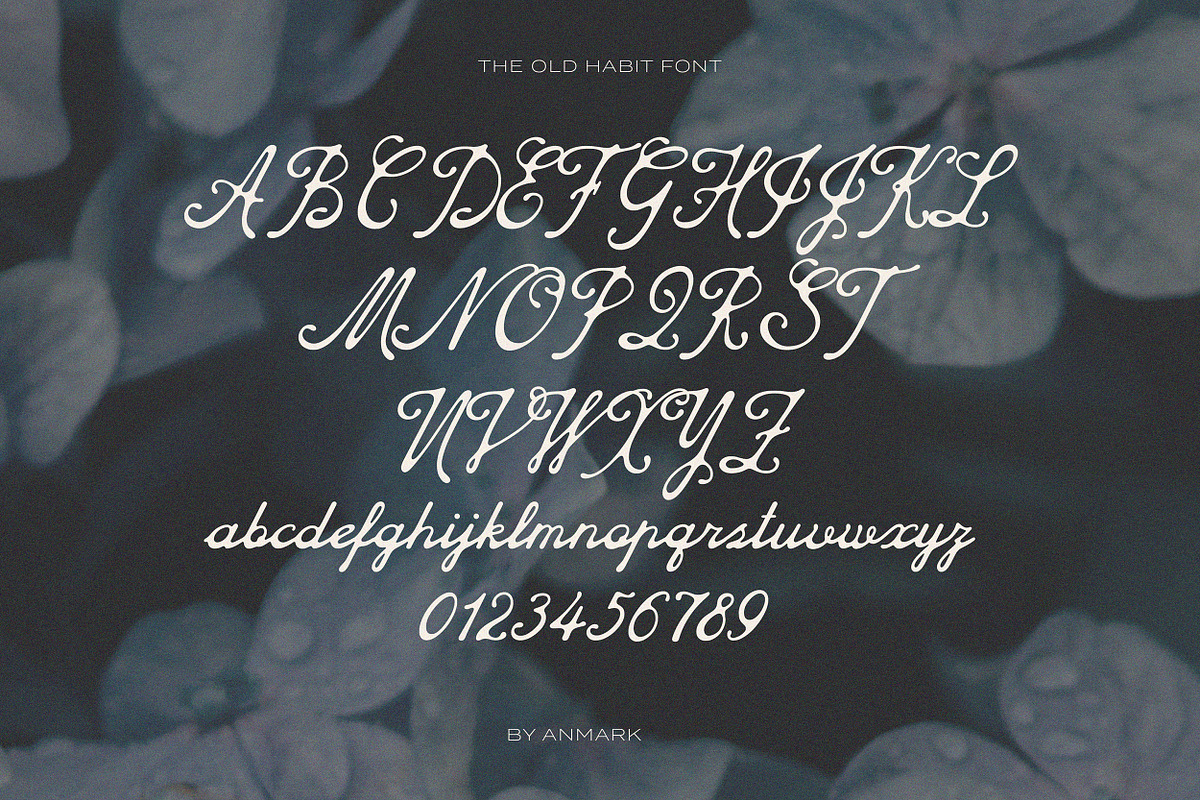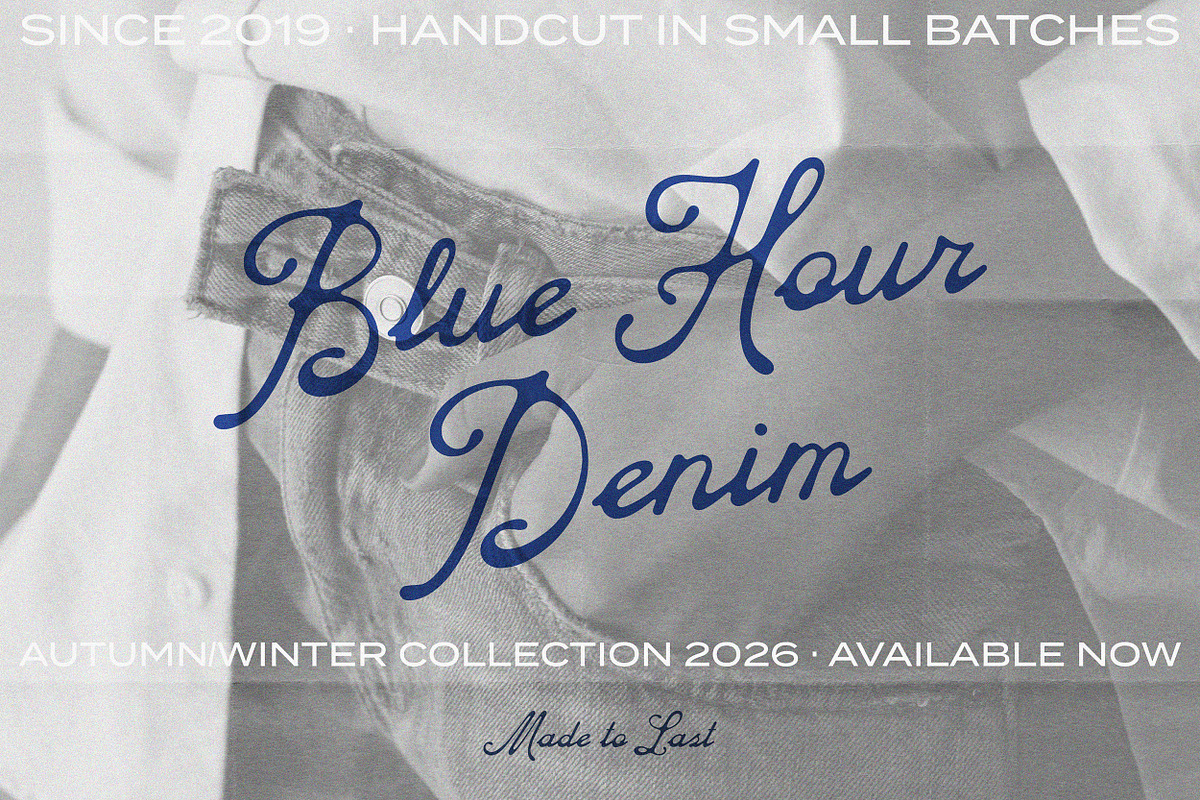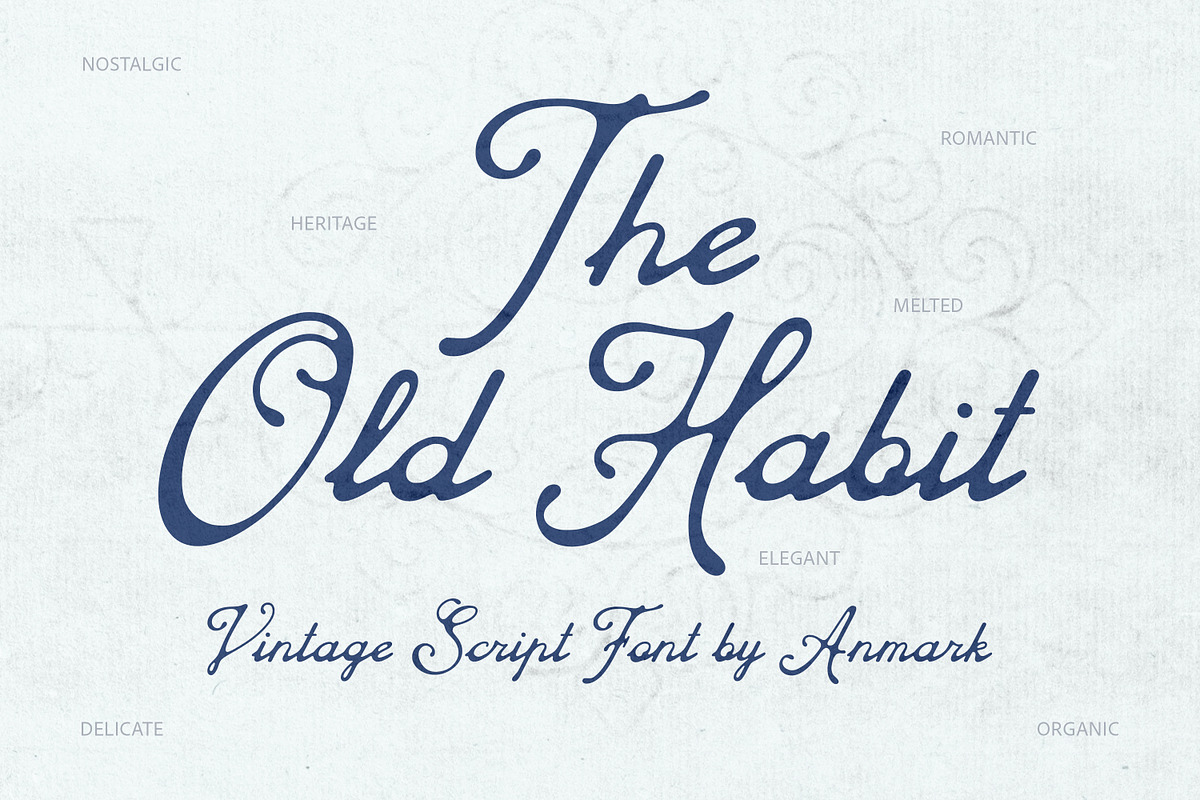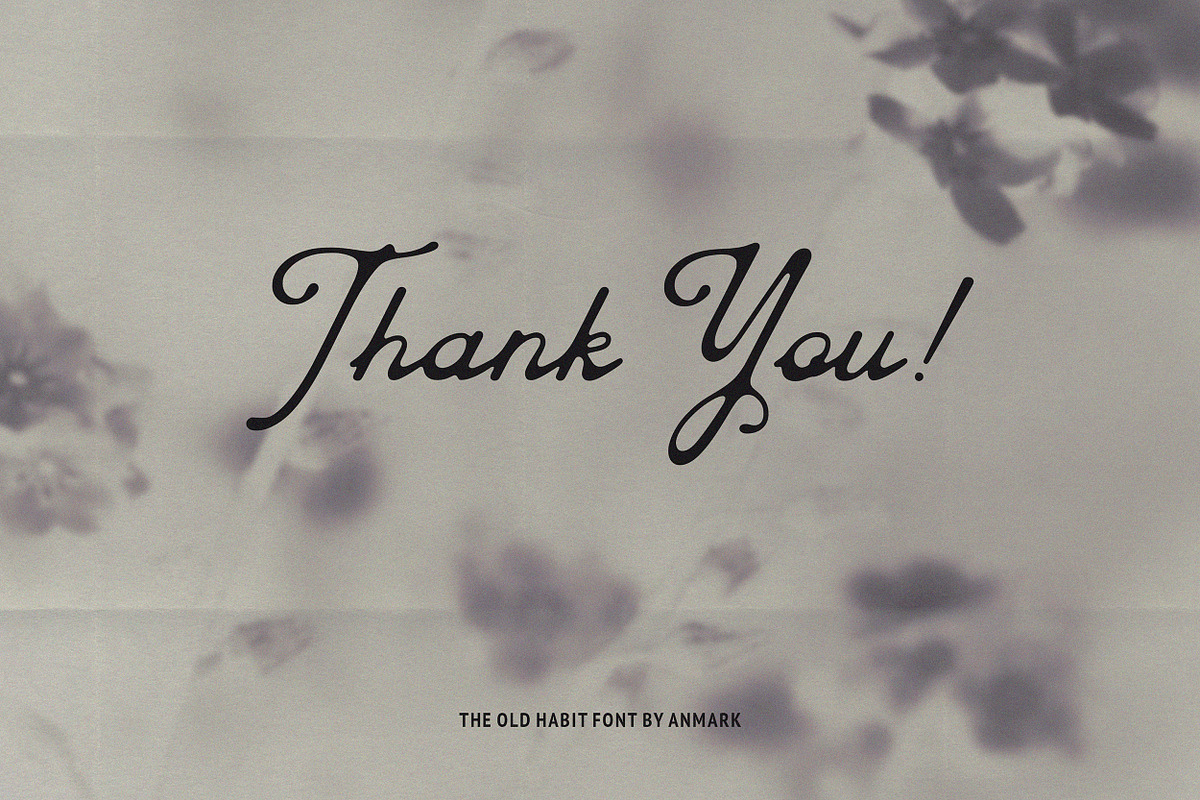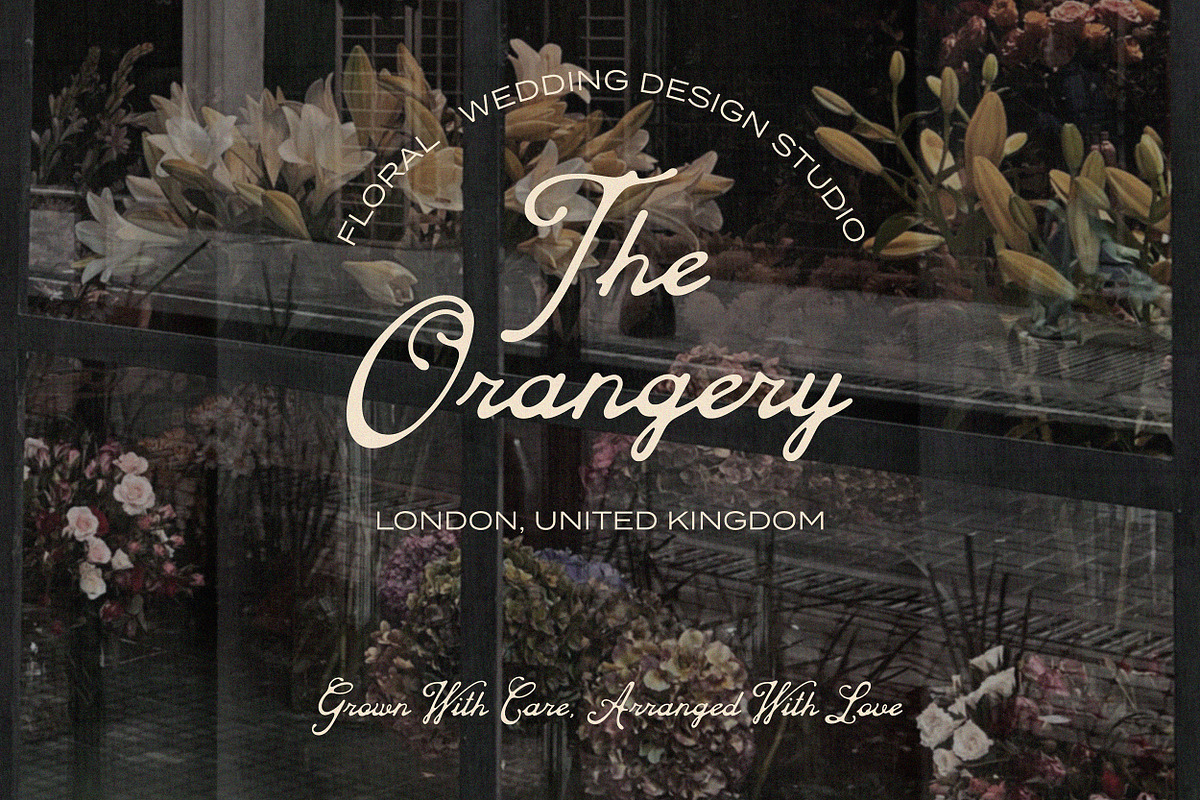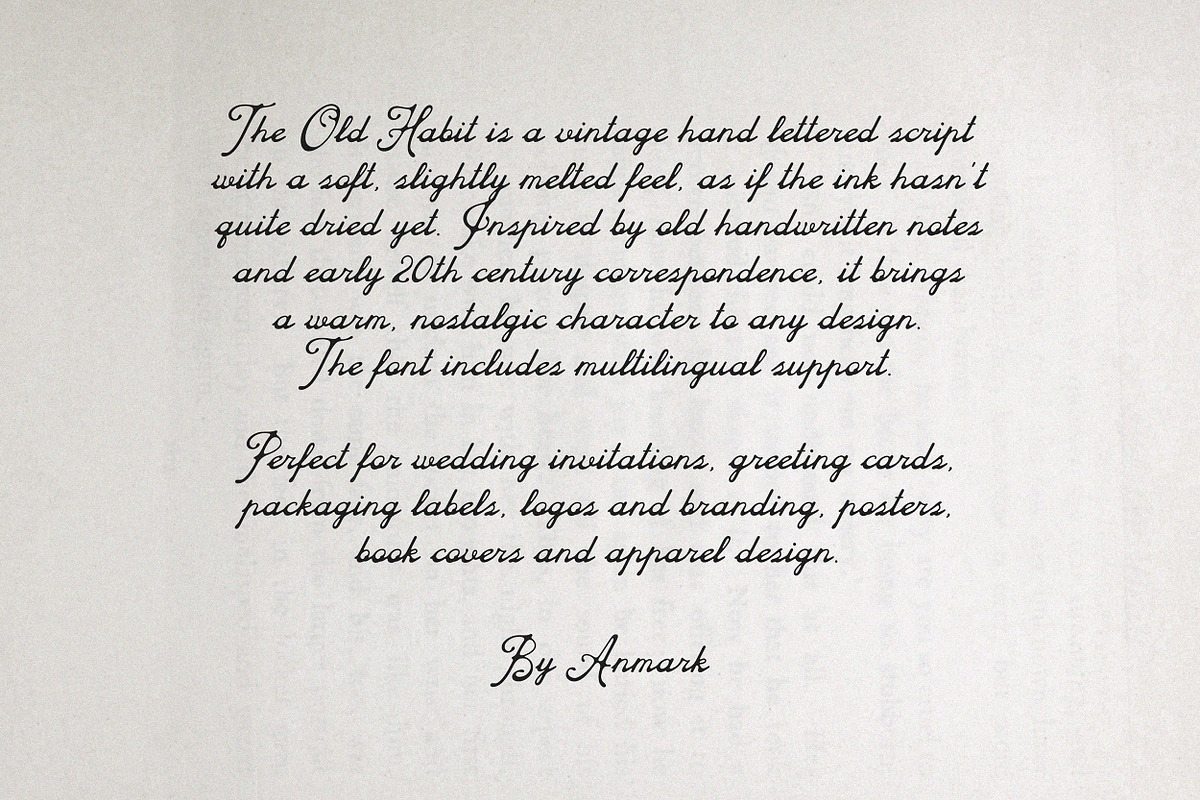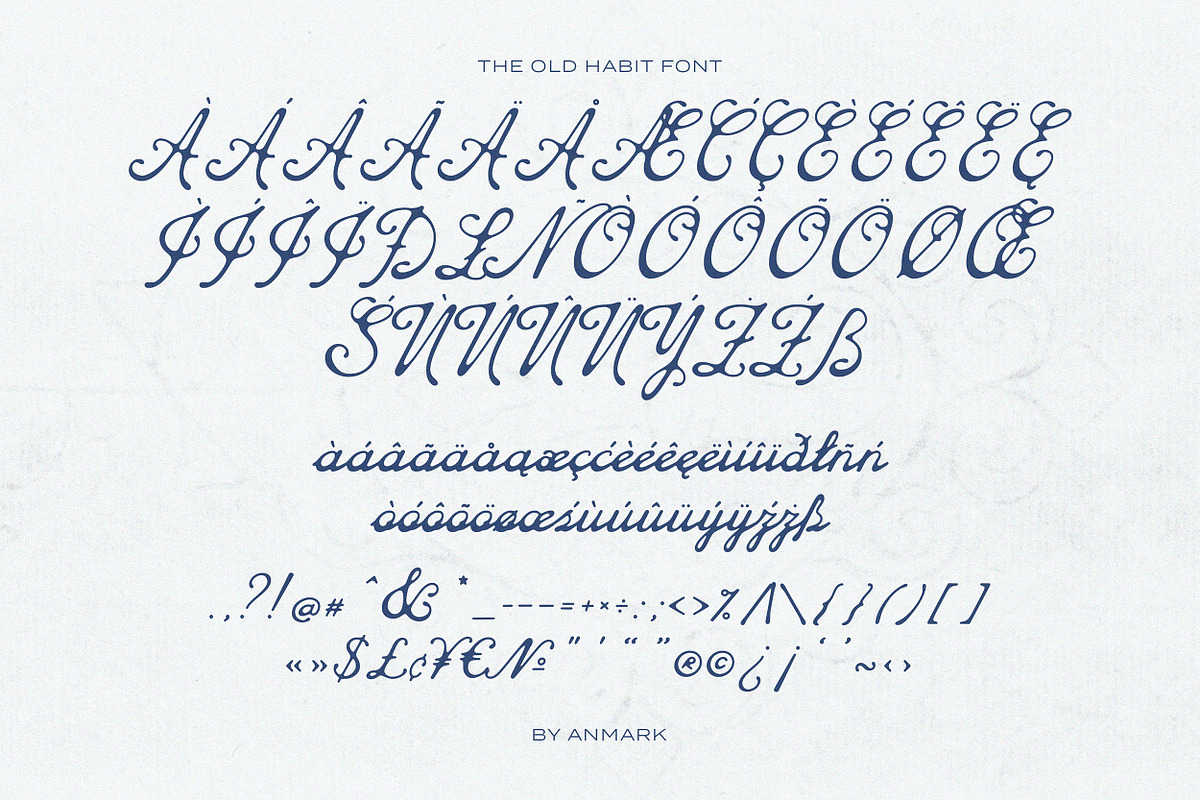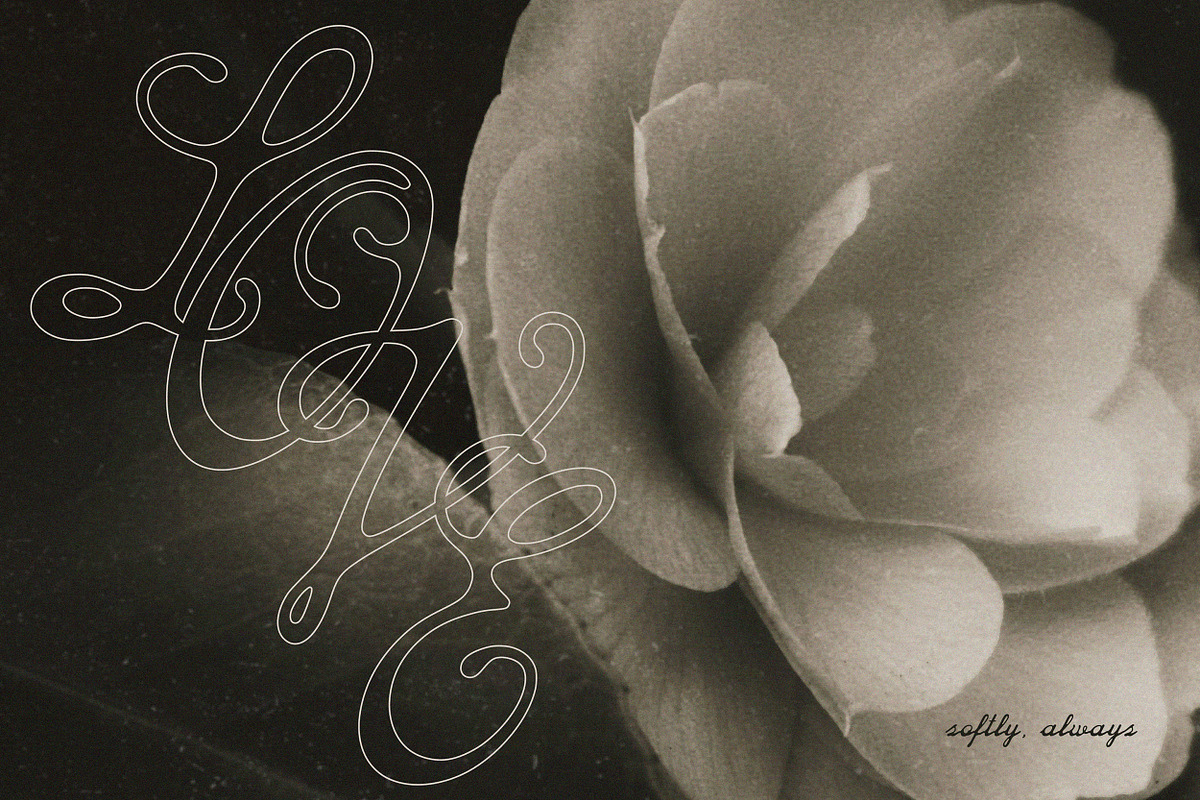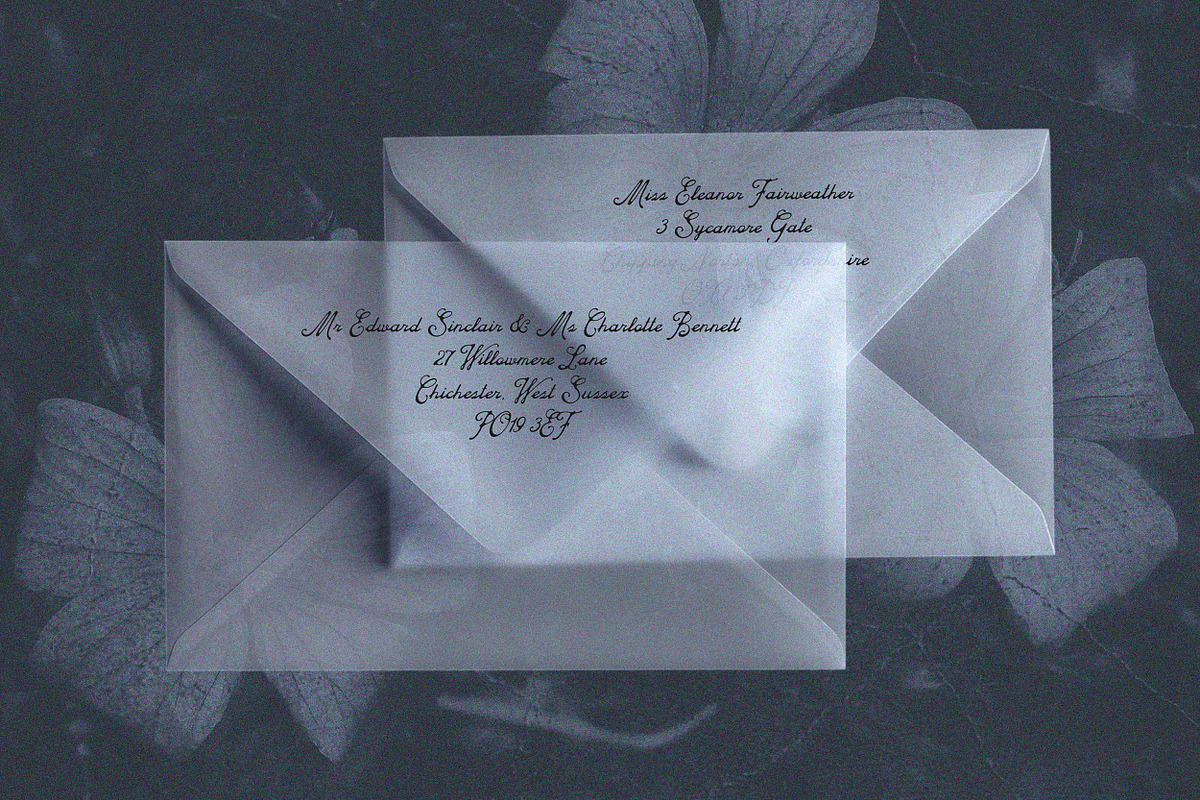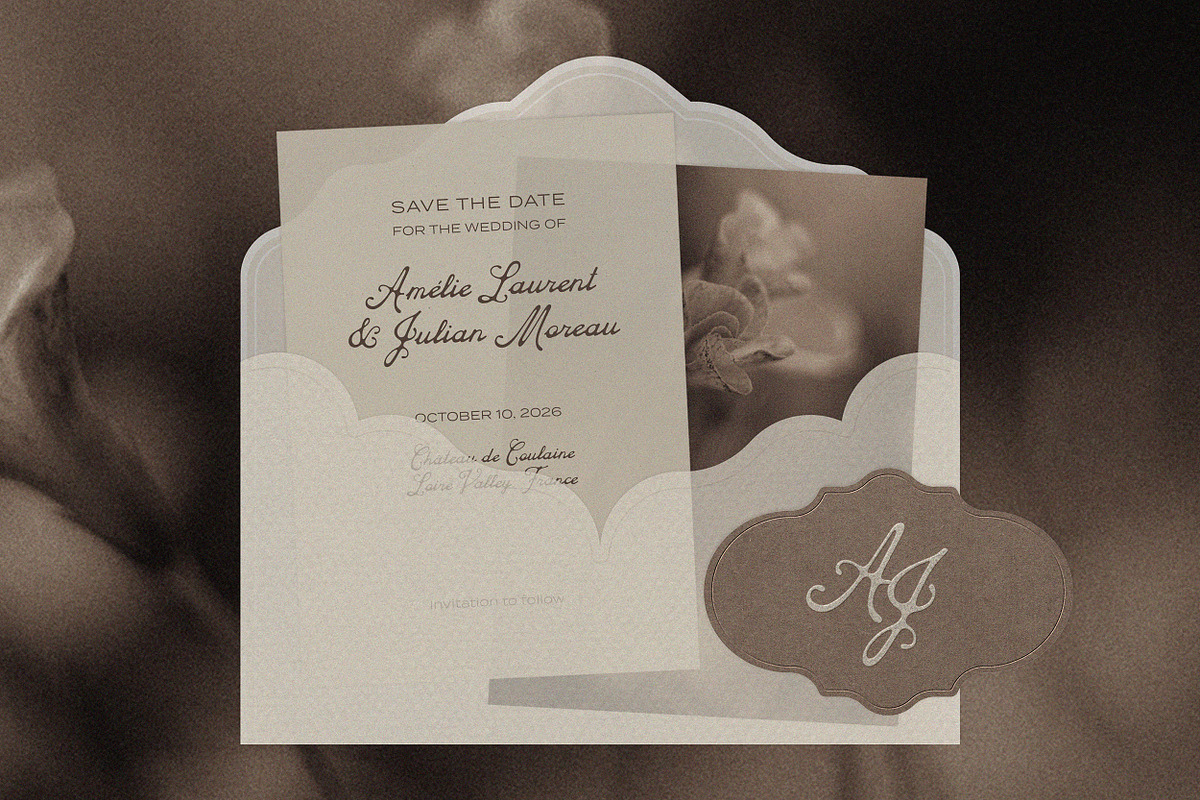
The Old Habit Vintage Script Font
The Old Habit is a vintage hand lettered script with a soft, slightly melted feel, as if the ink hasn't quite dried yet. Each letter carries a warm, imperfect character, inspired by old handwritten notes and early 20th century correspondence.
The flowing connections and gently uneven strokes give the script a personal, authentic quality. It reads as genuine handwriting rather than a polished digital font, bringing a nostalgic, lived in charm to any design.
Font features:
Uppercase and lowercase letters
Numbers and punctuation
Wedding invitations and save the dates
Greeting cards and stationery
Logos and branding for handmade, vintage or lifestyle brands
Packaging labels for candles, cosmetics, bakery or boutique products
Social media quotes and posters
Book covers and editorial titles
Apparel and merchandise designs